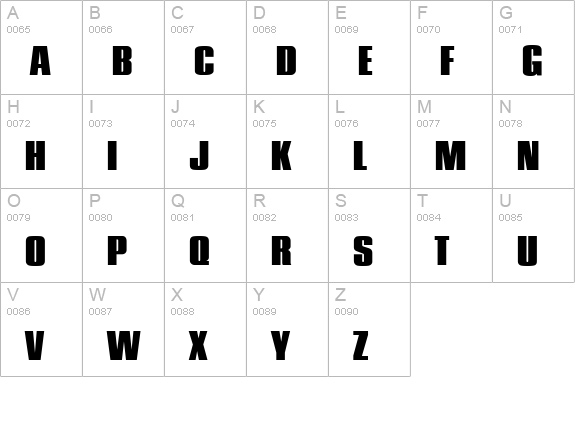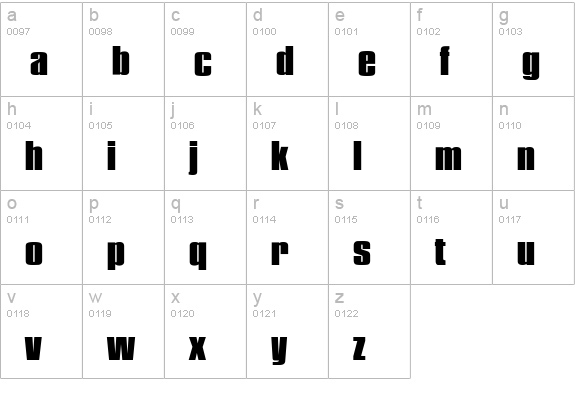
PlaketteSerial-Heavy-Regular Font Details
PlaketteSerial-Heavy-Regular is a heavy, high-impact variant in the PlaketteSerial typeface family \xE2\x80\x94 well suited to high-impact headlines, posters, and display advertising.
PlaketteSerial-Heavy-Regular is a bold and eye-catching font that exudes strength and confidence. With its sturdy and commanding appearance, this typeface is perfect for making a bold statement in any design project. Whether you're creating posters, headlines, or logos, PlaketteSerial-Heavy-Regular will surely grab attention and leave a lasting impression. The font's clean lines and sharp edges give it a modern and industrial feel, making it ideal for projects that require a strong and impactful aesthetic. Its versatility allows it to be used in a variety of design applications, from branding to packaging to editorial design. Best of all, PlaketteSerial-Heavy-Regular is available for free download at FontsMarket.com. This means you can easily access this powerful font and incorporate it into your projects without any cost. Don't miss out on this fantastic opportunity to enhance your designs with the bold and striking PlaketteSerial-Heavy-Regular font.